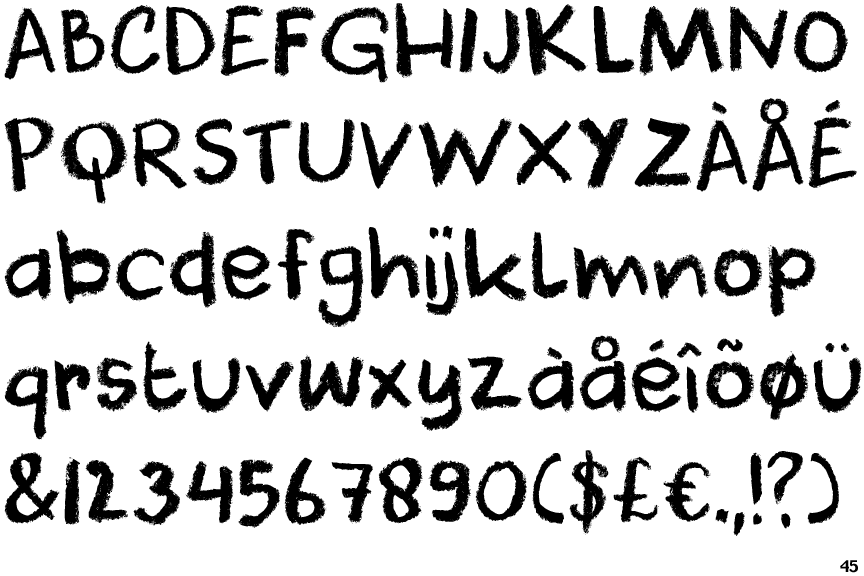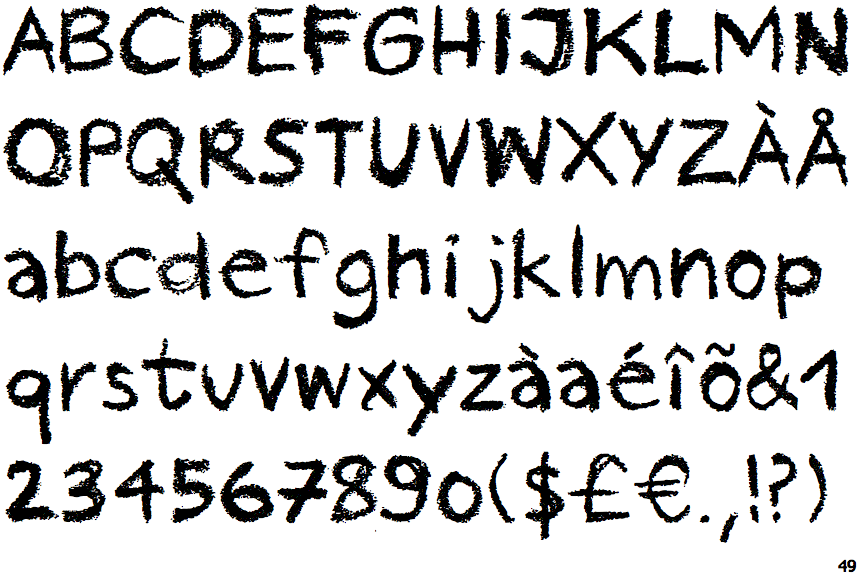
Crayon Font Name
Crayon Fonts Are The Most Elegant Fonts With Better Understanding And Drafting Behaviour.
It’s Been A Huge Part Of Everyone’s Childhood Since Its Debut In The 1900S.